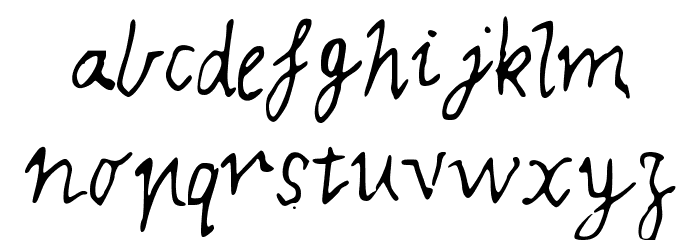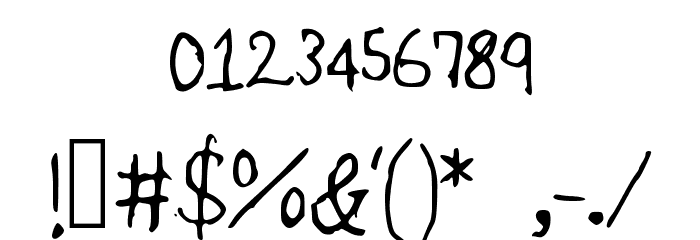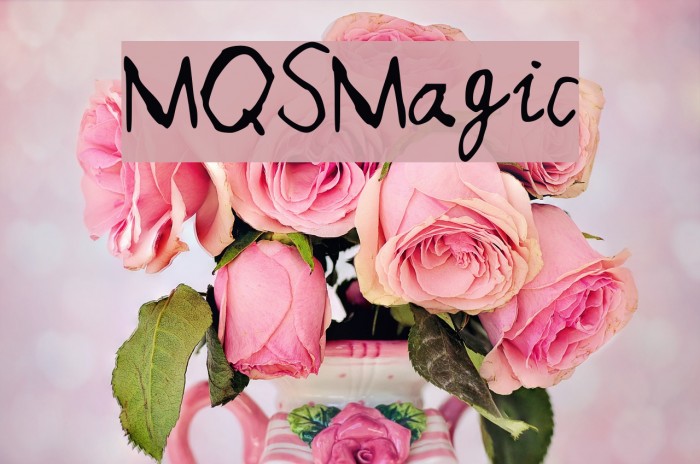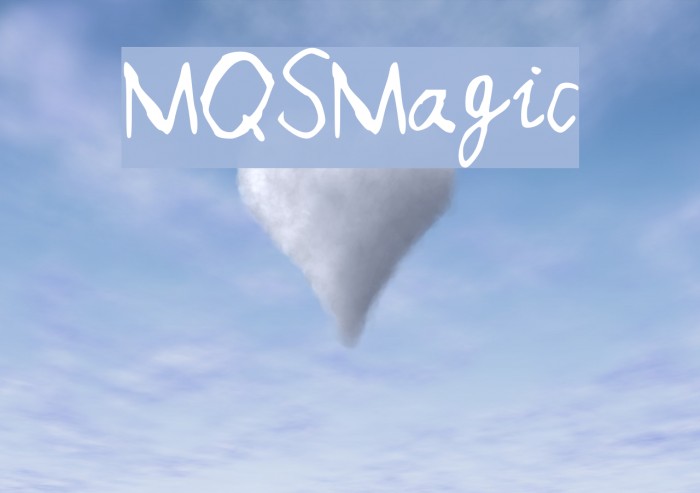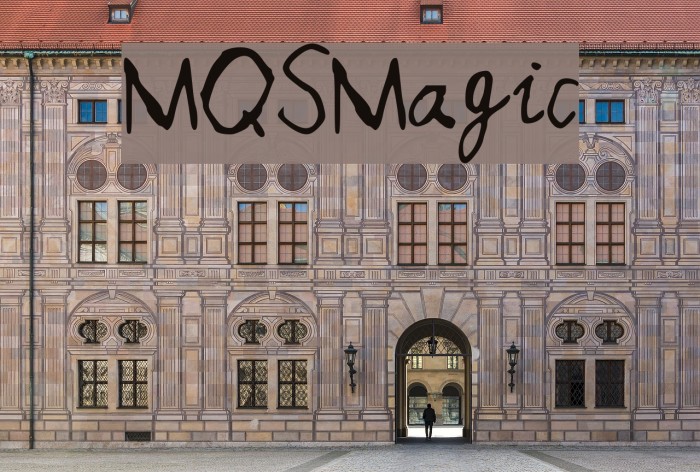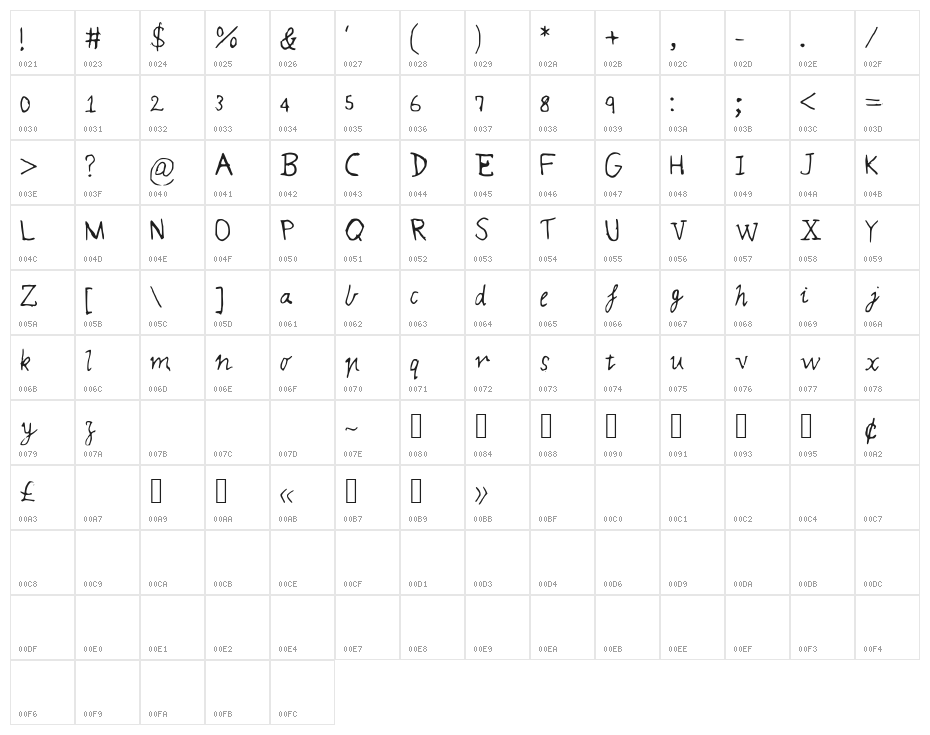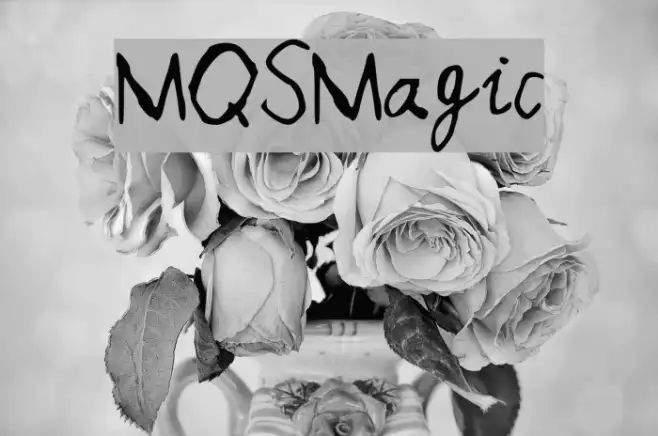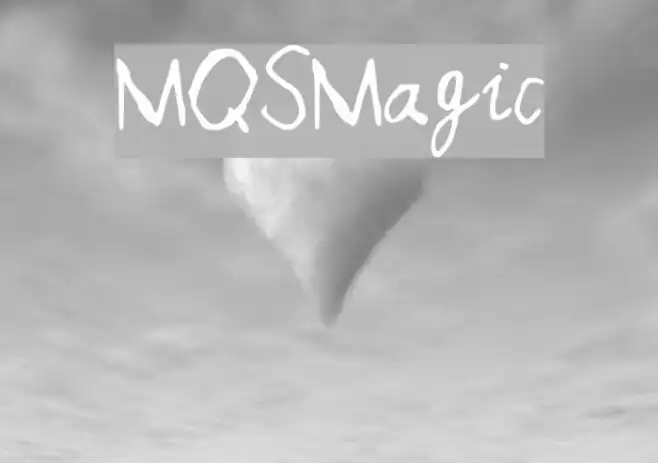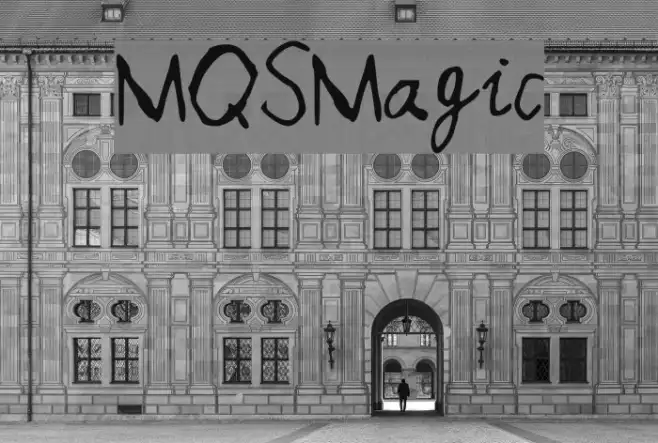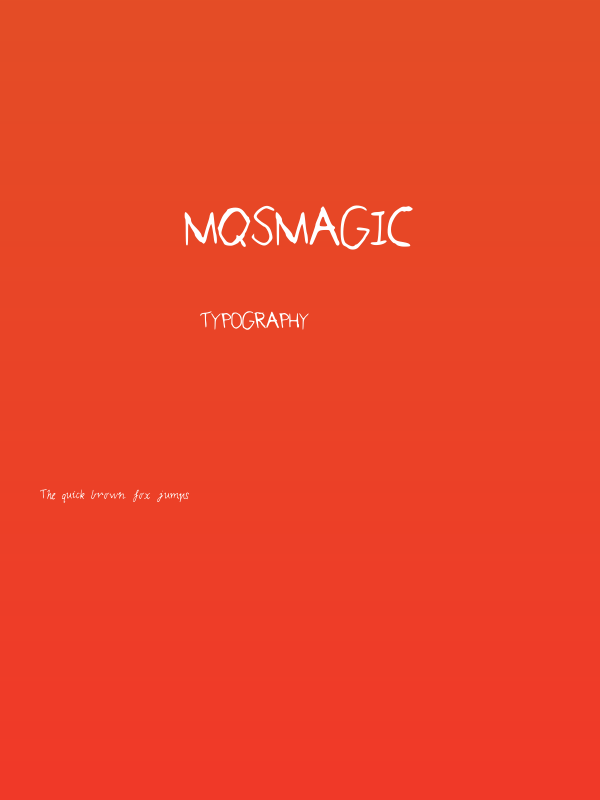
MQSMagic Font
This font features a playful and whimsical style, characterized by its hand-drawn appearance and irregular strokes. The letters have a casual, informal feel, with varying line thickness that adds a dynamic and lively touch. The uppercase letters are bold and slightly uneven, while the lowercase letters exhibit a more fluid and cursive-like quality. Numbers and special characters maintain the same quirky and artistic vibe, making the font suitable for creative and expressive projects. The overall design is reminiscent of a handwritten script, offering a personal and unique aesthetic.
A playful, hand-drawn font with a whimsical and informal style.
- Proposed Projects: Ideal for greeting cards, children's books, artistic posters, and creative branding.
- Use Case: Logos, Headlines, Artistic projects